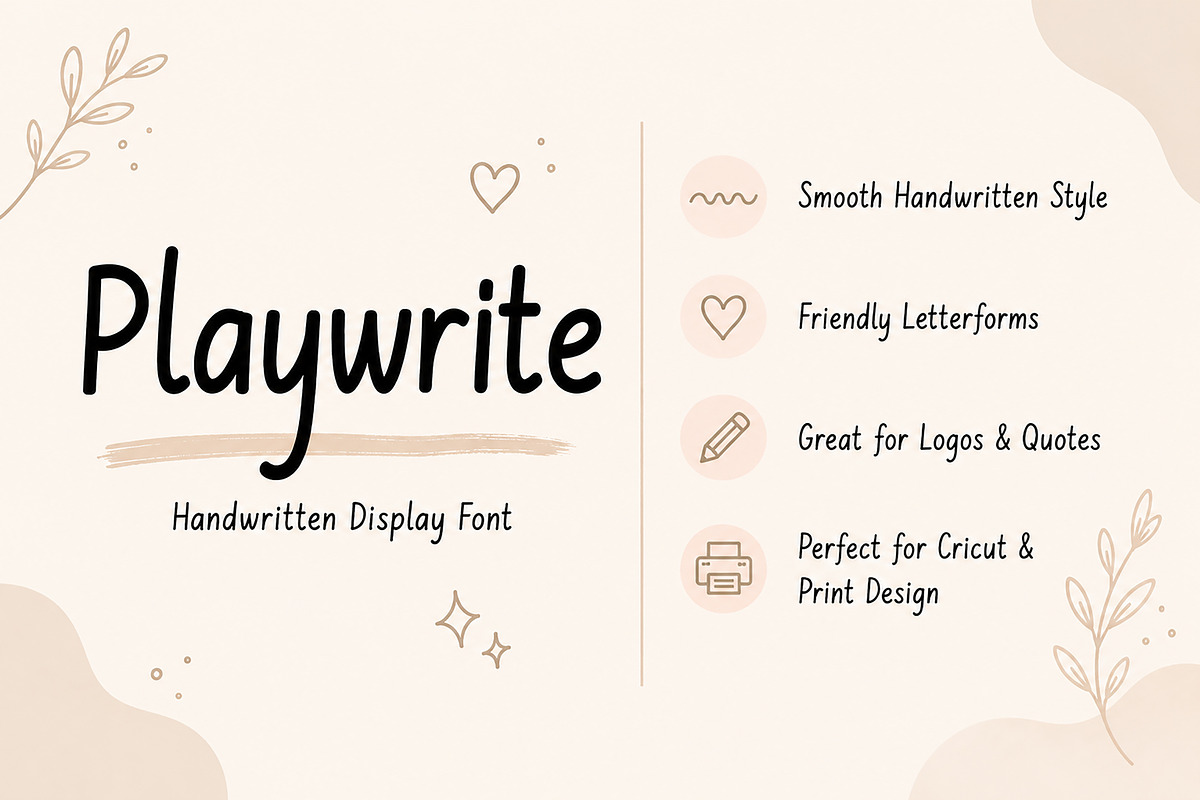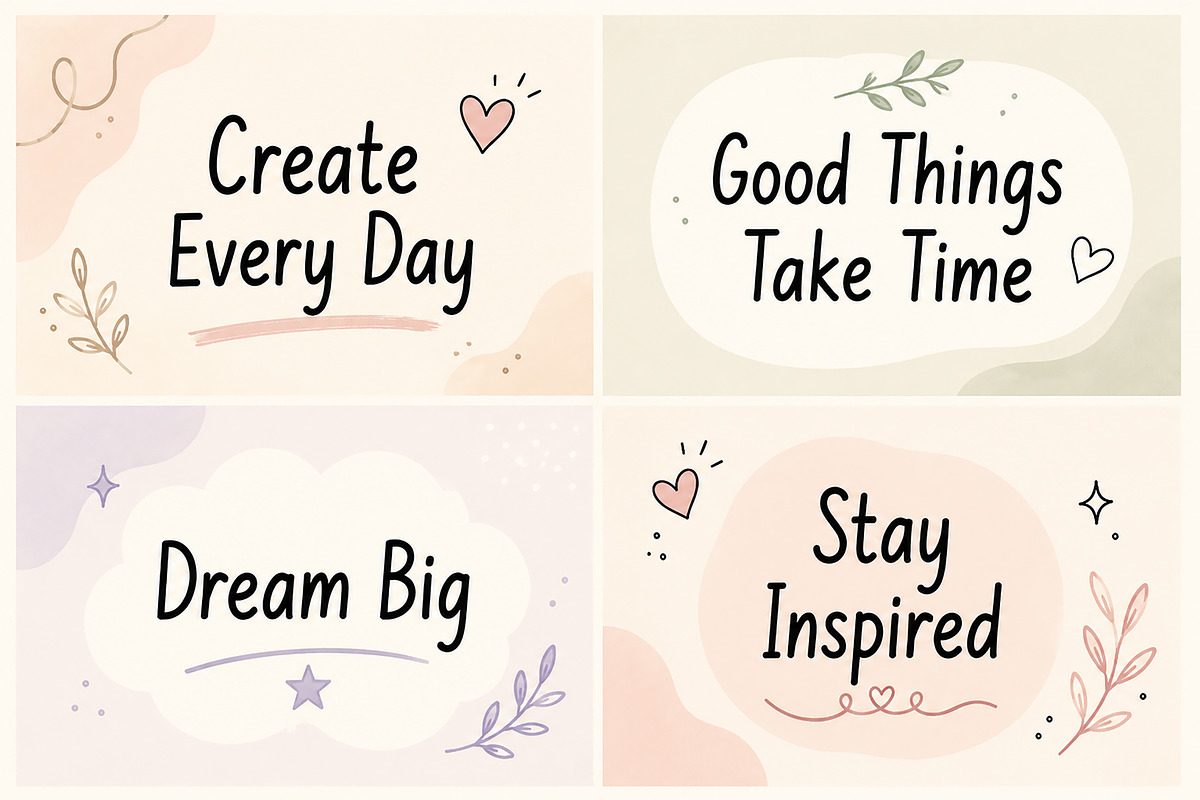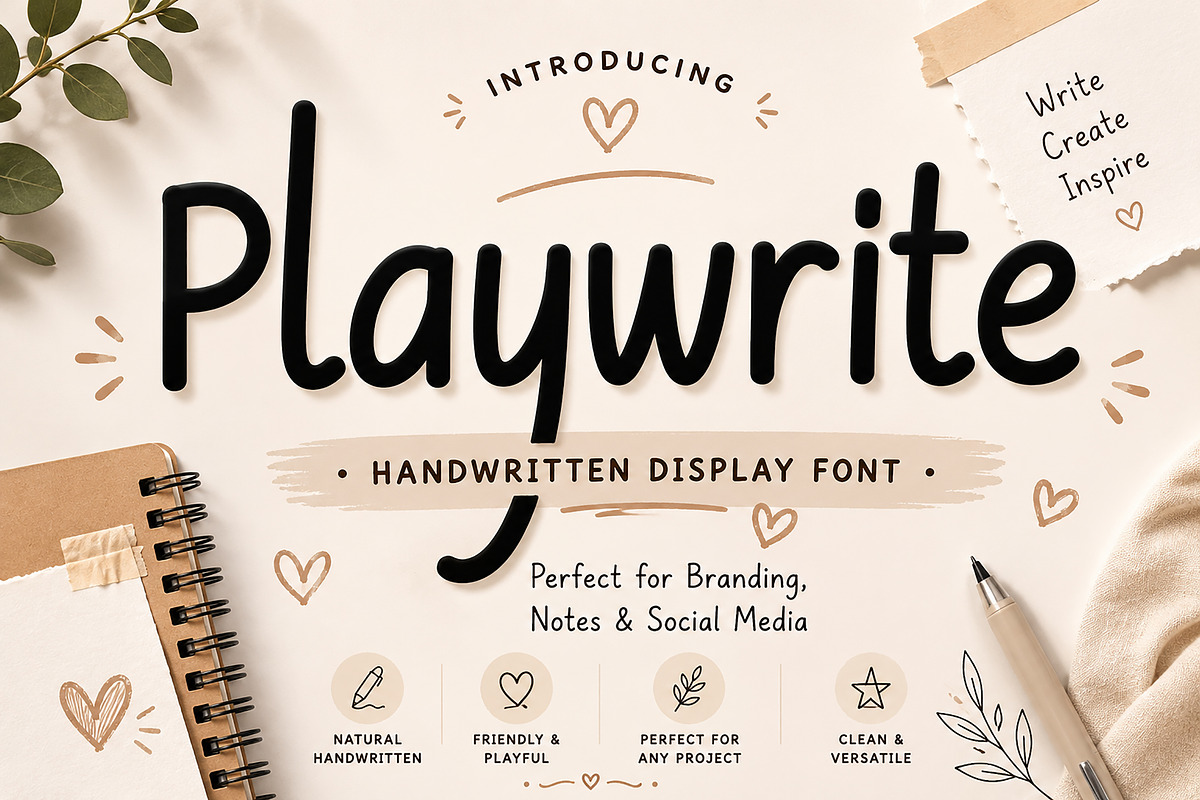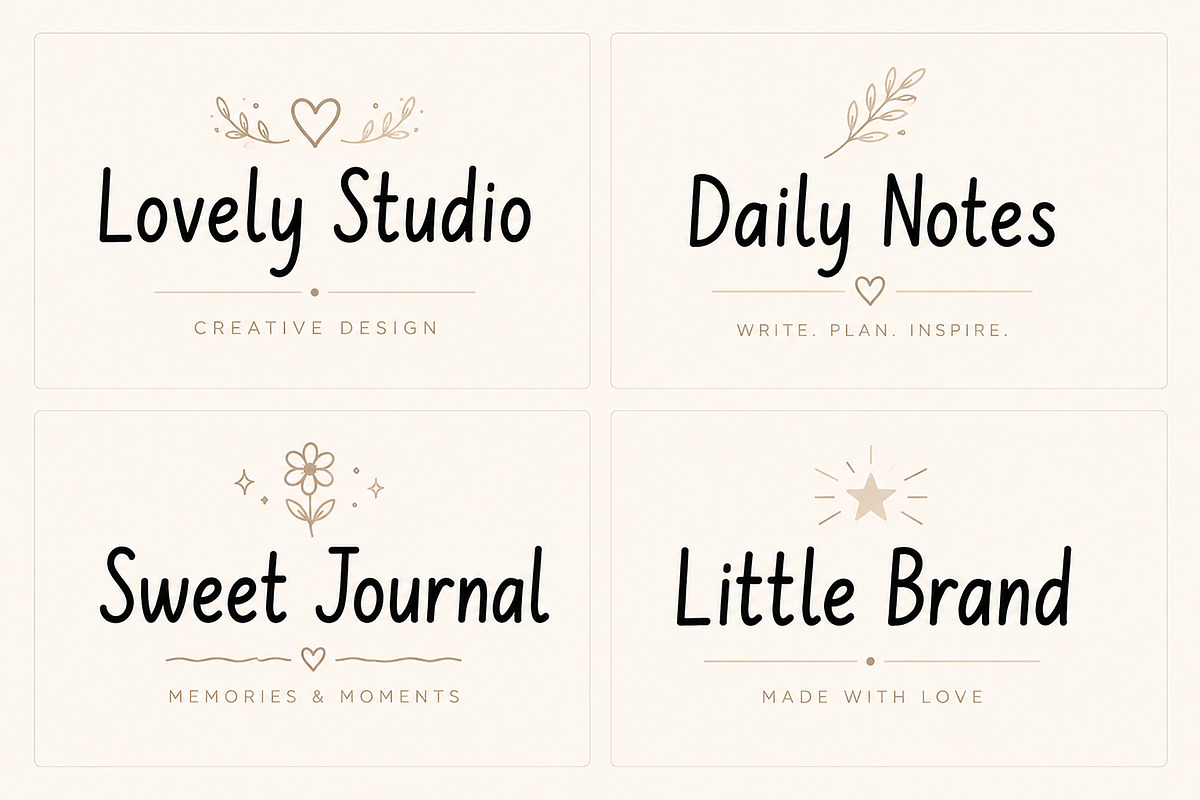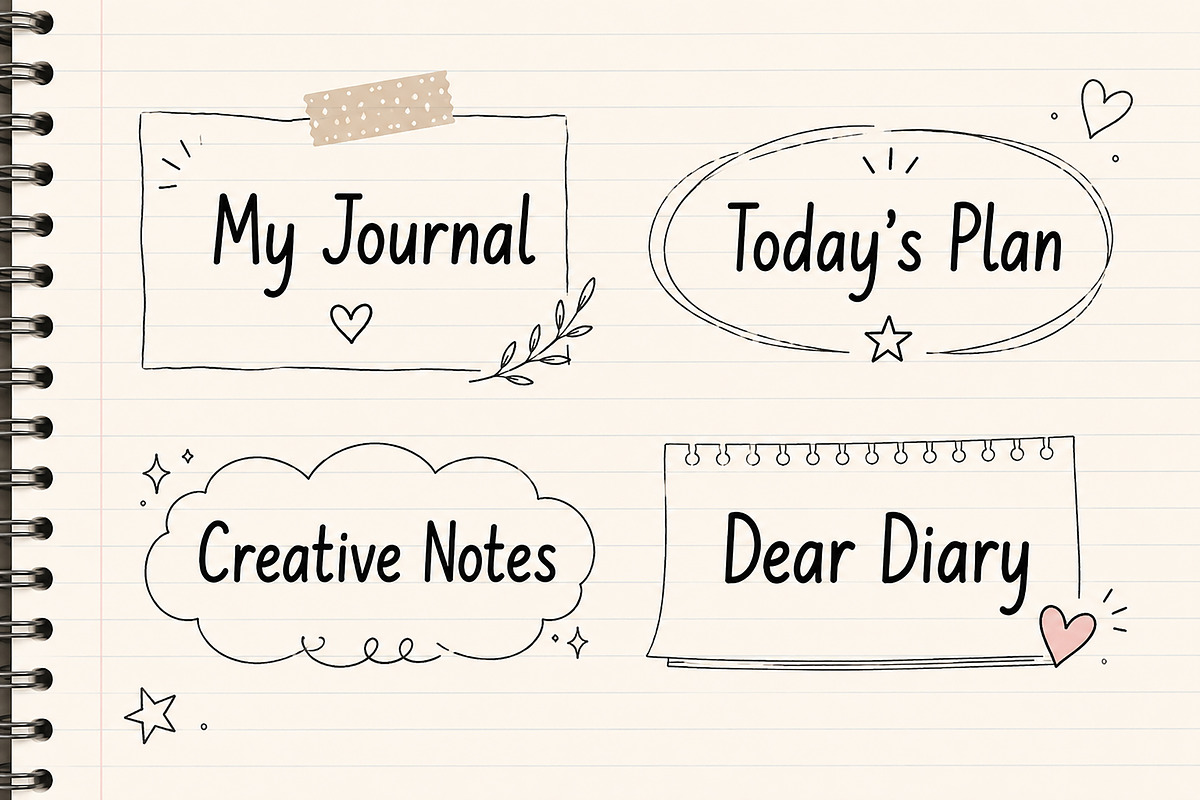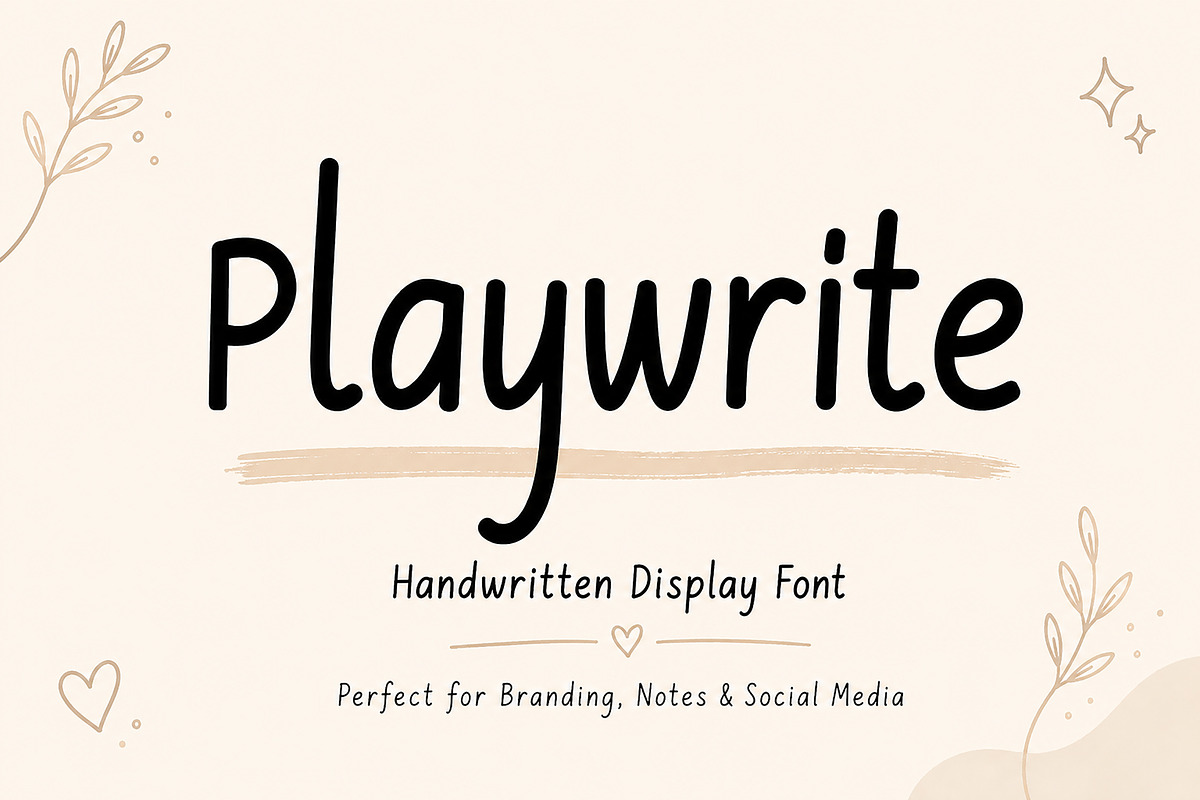
Playwrite
Playwrite is a charming handwritten display font that brings warmth, creativity, and personality to every design. With its smooth strokes, rounded letterforms, and natural handwritten flow, this font is perfect for creating eye-catching branding, inspiring quotes, social media graphics, journals, planners, stationery, and creative craft projects.
Designed with a clean and friendly aesthetic, Playwrite delivers an authentic handwritten look while remaining highly readable. Whether you're designing logos, product packaging, invitations, stickers, Cricut projects, or printable artwork, this font adds a playful yet professional touch to your creations.
Its versatile style makes it suitable for both personal and commercial projects, giving your designs a modern handcrafted feel.
Branding & Identity
Instagram & Pinterest Posts
Quotes & Typography
Journals & Planners
Stationery Design
Greeting Cards
Invitations
Stickers
Cricut & Silhouette Projects
T-Shirts & Merchandise
Blogs & Websites
Printable Designs
Scrapbooking
DIY Crafts
Smooth Handwritten Style
Clean & Friendly Letterforms
Easy to Read
Natural Handwritten Flow
Modern Display Typeface
Perfect for Digital & Print Projects
Beginner Friendly